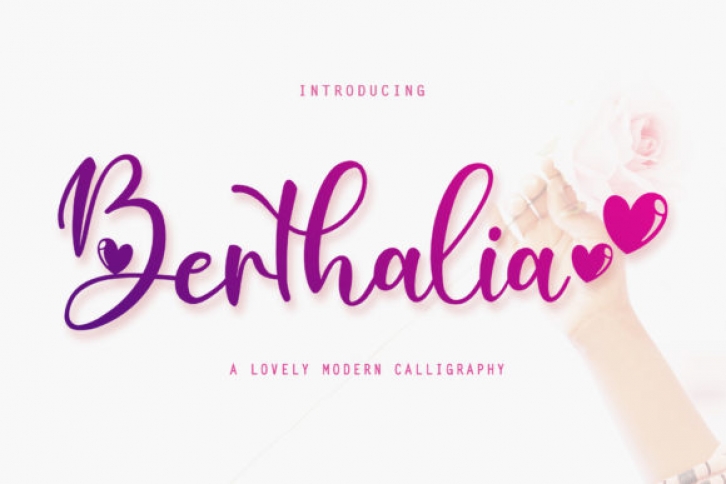
Berthalia is a lovely and romantic handwritten font. It looks stunning on wedding invitations, cards, headings, books, quotes, greeting cards, logos, business cards and every other design which needs a love handwritten touch.